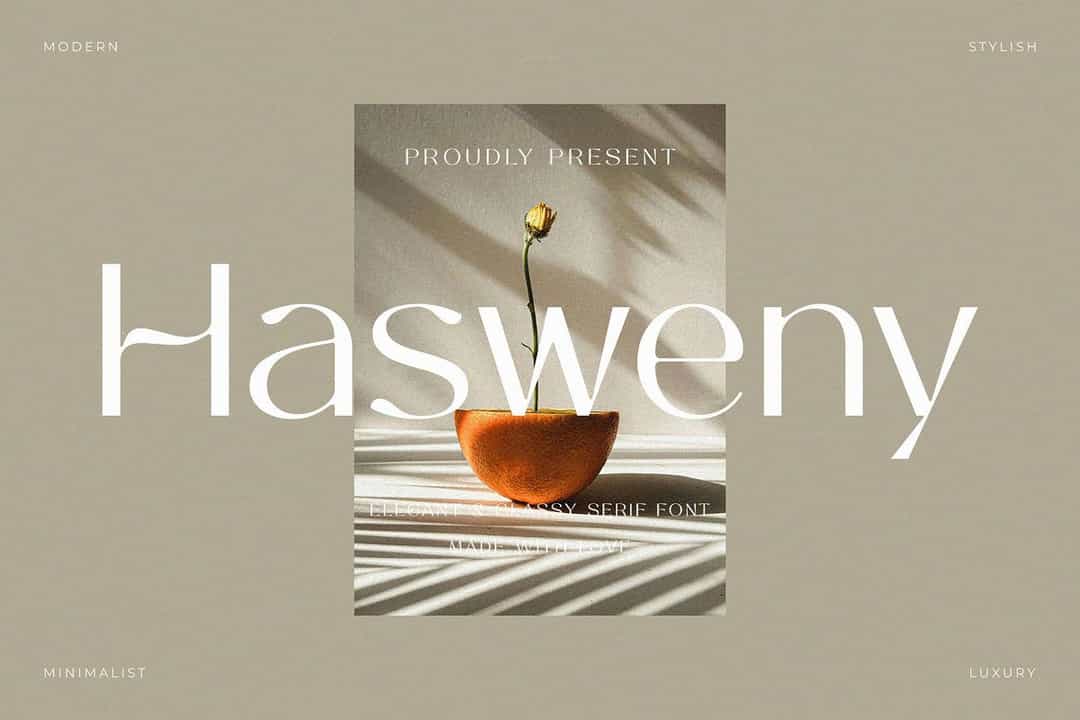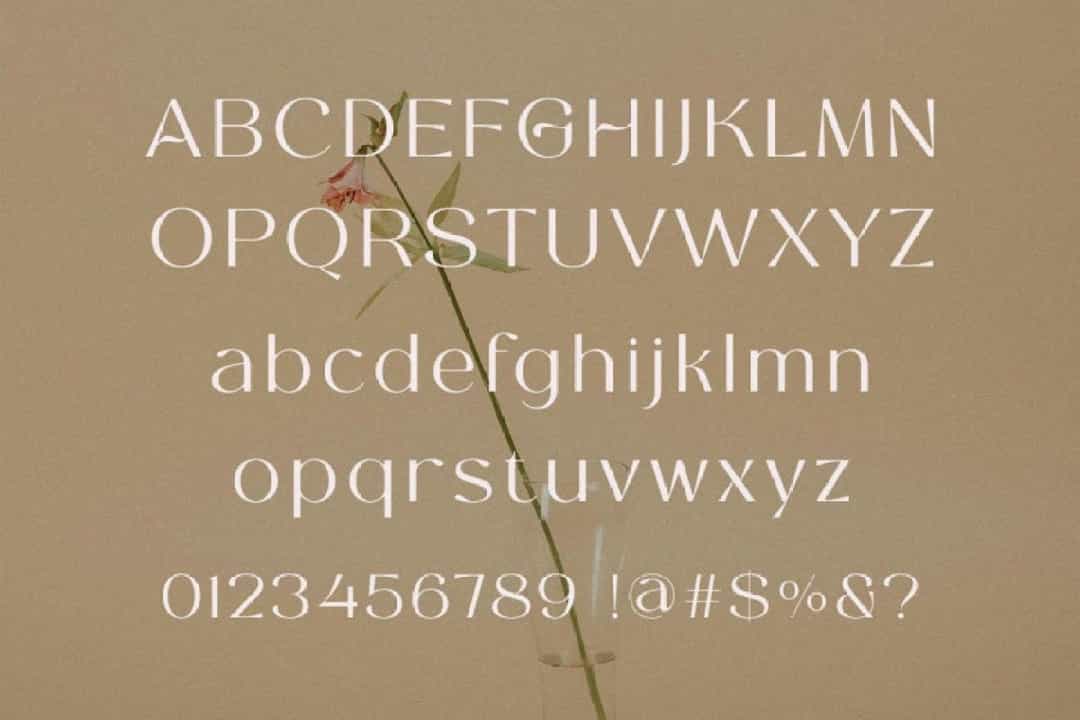
Discover Hasweny Font, part of the Sans Serif collection—a versatile and unique font perfect for adding a personal touch to your projects. Download it for free and enjoy crafting designs with style, from invitations to social media posts. This font is available exclusively for personal use, giving you the freedom to create without limits. Unlock your creativity with Hasweny Font today!
Hasweny is a modern and elegant typeface, most appropriate as a display for headings, logos, branding, magazines, product packaging and invitations. The clean lines and smooth curves of Hasweny give any project, no matter what kind of it is, that extra touch on class.